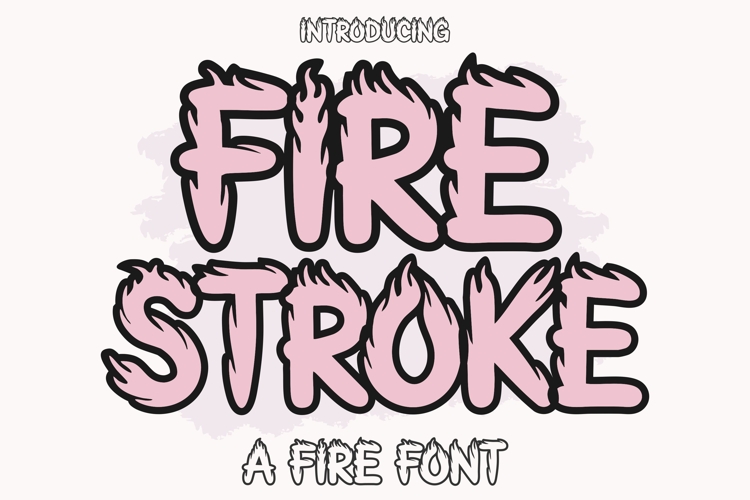
The Firestroke Font is a bold and fiery display typeface that brings instant energy to any project. Designed with blazing flames, sharp edges, and bold strokes, this flame font is perfect for Cricut, Silhouette, Glowforge, CNC machines, and digital crafting. Each letter looks alive with heat and fire, making it the ultimate choice for bold projects that stand out.
Whether you’re creating BBQ party signs, grilling aprons, hot summer t-shirts, Halloween crafts, or fiery wall art, Firestroke delivers maximum impact. Its burning letters are designed to spark creativity in shirts, mugs, posters, invitations, decals, and more.
This font is also perfect for crafters and makers looking for SVG fire letters, flame alphabets, and bold fonts for digital cutting machines. The versatility of Firestroke makes it great for designs ranging from BBQ cookout posters to spooky Halloween party flyers, camping decorations, and fiery motivational quotes.
Every character is crafted with attention to detail, capturing the dynamic look of flames rising from each stroke. With installable OTF and TTF files plus SVG, DXF, EPS, and PDF cut files, this font works seamlessly across different platforms. Whether you’re a Cricut beginner or an experienced Glowforge user, Firestroke is designed to help you create professional and eye-catching projects with ease.
✔ Bold flame display letters – Perfect for shirts, mugs, posters, signs, and more